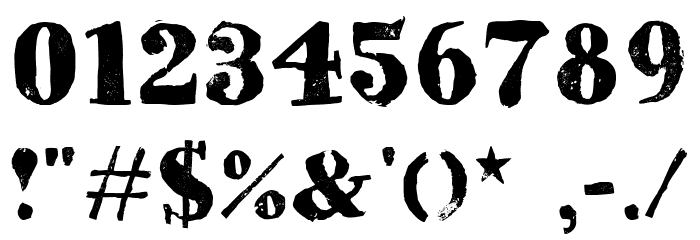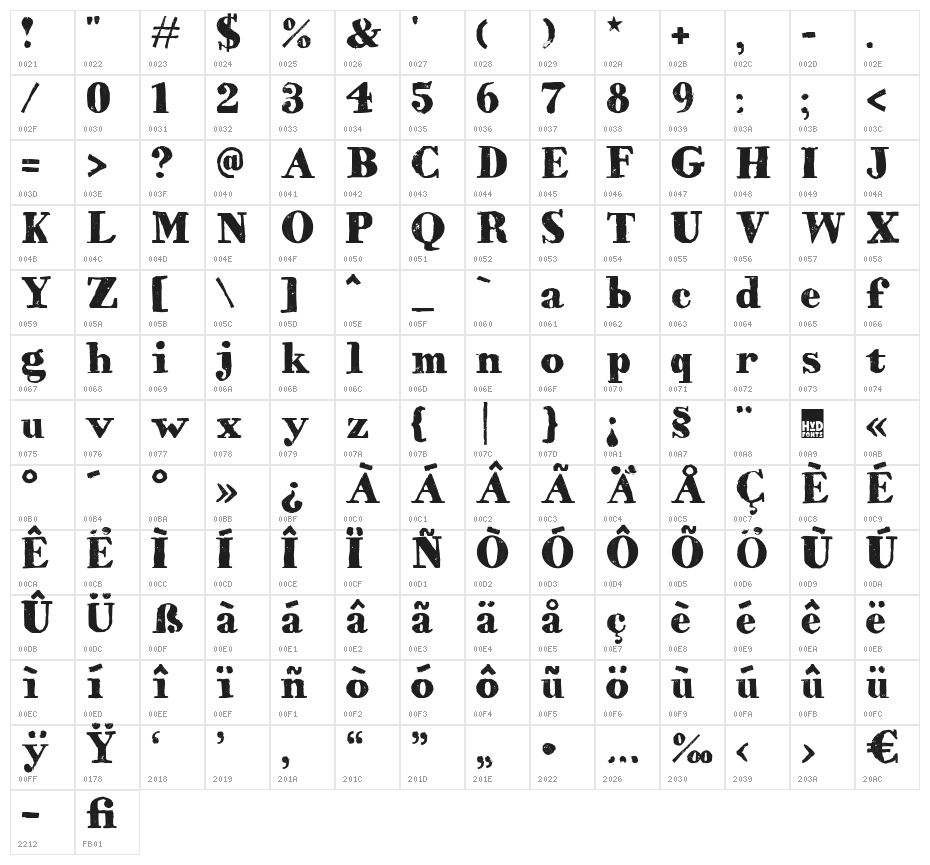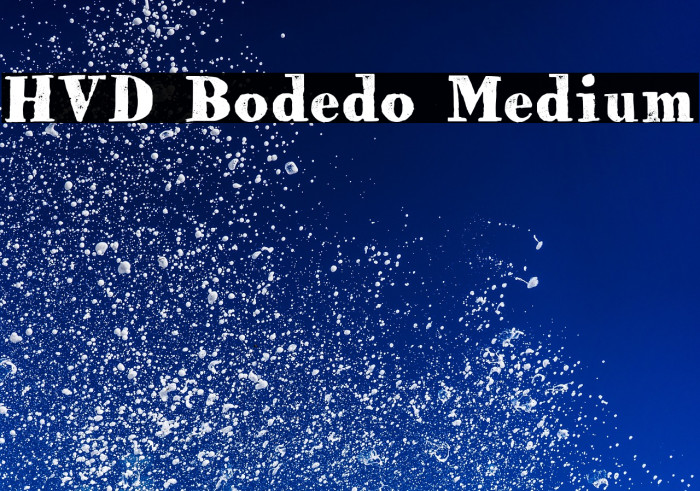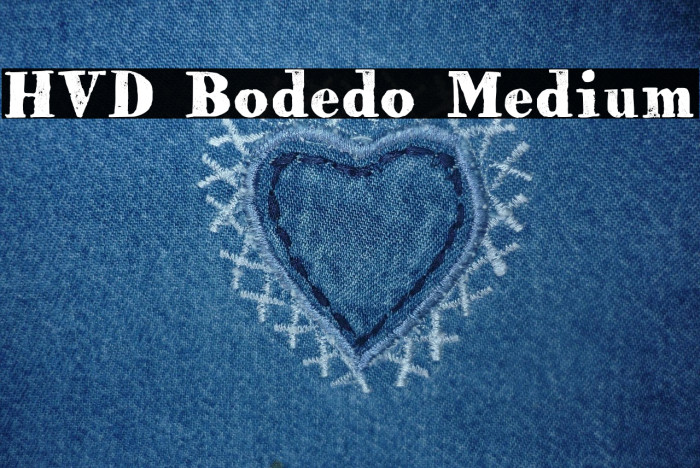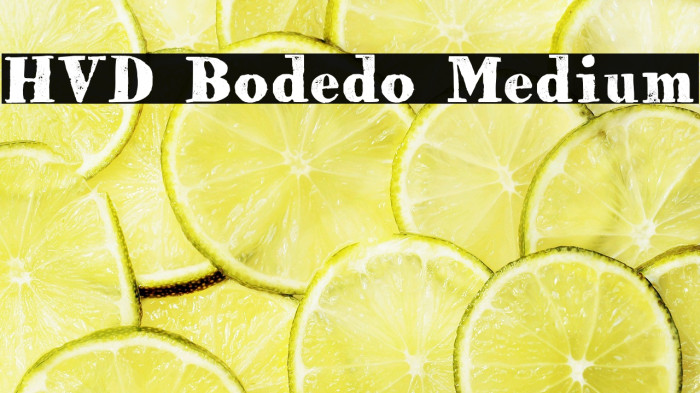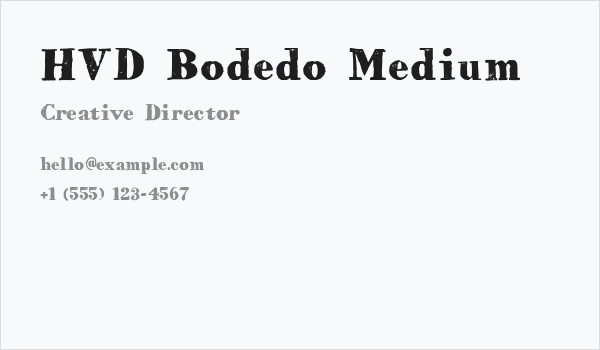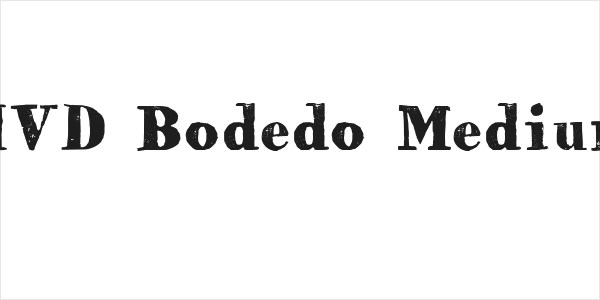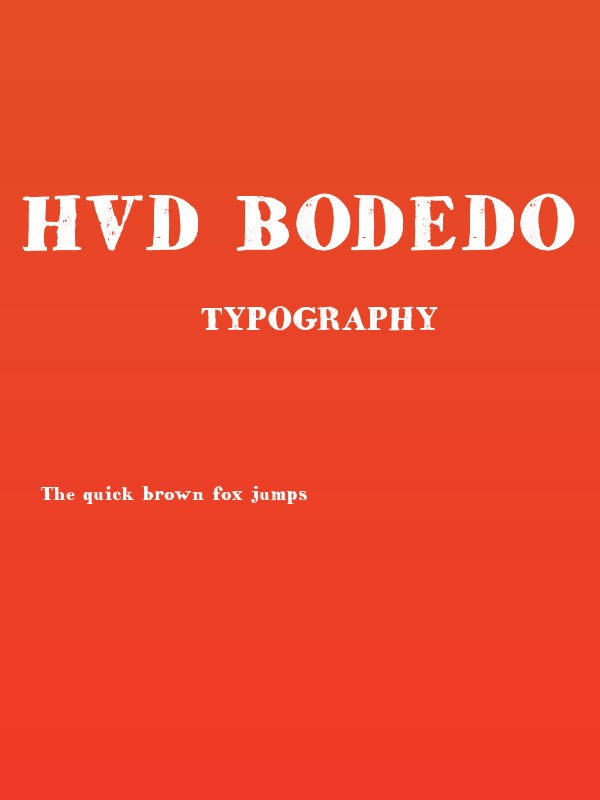
HVD Bodedo Medium Font
HVD Bodedo Medium Description
This font features a bold and distressed style, reminiscent of vintage printing techniques. The characters have a rough, textured appearance, giving them a rugged and worn look. The uppercase and lowercase letters maintain a consistent weight, with slightly uneven edges that add to the rustic charm. The numerals and special characters follow the same distressed aesthetic, making the font suitable for designs that require a handcrafted or retro feel. The overall impression is one of strength and character, with a touch of nostalgia.
| Proposed Projects | Ideal for poster designs, branding for rustic or vintage-themed products, and any project that requires a handcrafted, retro aesthetic. |